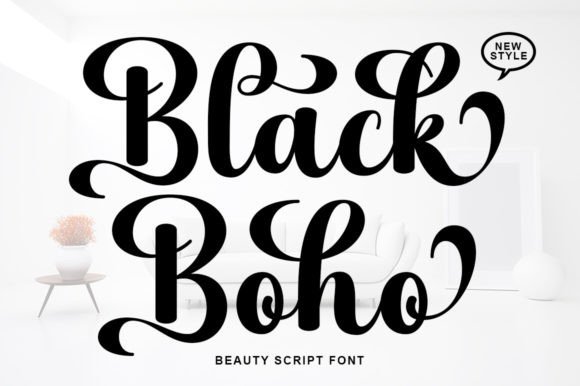
The Magic of Black Boho Font: Elevate Your Designs with Elegance
I’ll never forget the time I was working on a wedding invitation project, and my client asked for a font that was both elegant and playful. I scoured the internet, tried countless fonts, but nothing seemed to fit the bill. That was until I stumbled upon the Black Boho Script font. It was like a breath of fresh air – the perfect blend of sophistication and whimsy. In this article, I’ll share my love for this beautiful script font, its features, and how to make the most of it in your designs.
An Honest Review of Black Boho Script
- ✨ Elegant and natural-looking script with many alternative styles
- ✅ Perfect for a wide range of projects, from invitations to product packaging
- ✅ Supports OpenType features, allowing for extensive customization
While Black Boho Script is an amazing font, there are a few things to keep in mind:
- ⚠️ Some users might find the font a bit overwhelming due to its many alternative styles and glyphs
- 🤔 It may require a bit of time to get familiar with the OpenType features and how to access them
- Experiment with different glyphs, stylistic alternates, and ligatures to add a personal touch to your design
The Story Behind Black Boho Script
Black Boho Script was designed with the intention of creating a font that was both elegant and versatile. The designer aimed to craft a script font that would be perfect for a wide range of projects, from wedding invitations to product packaging. With its many alternative styles and OpenType features, Black Boho Script has become a go-to font for designers and crafters alike.
| Font Name | Black Boho Font |
| Author | rotterlabstudio |
Q: Is Black Boho Script suitable for beginners?
A: While Black Boho Script is an amazing font, it may require some time to get familiar with its features and OpenType capabilities. However, with a bit of practice and patience, beginners can still create stunning designs using this font.